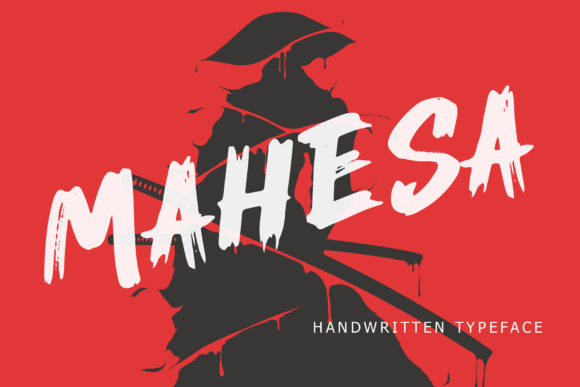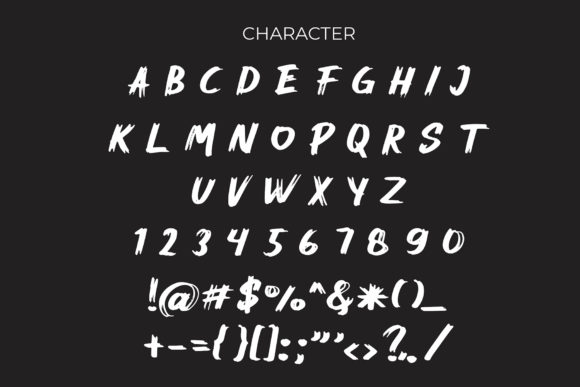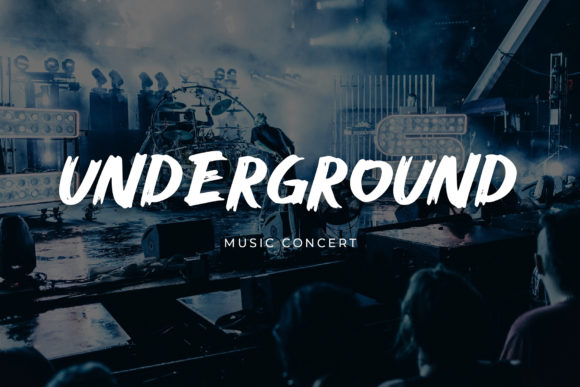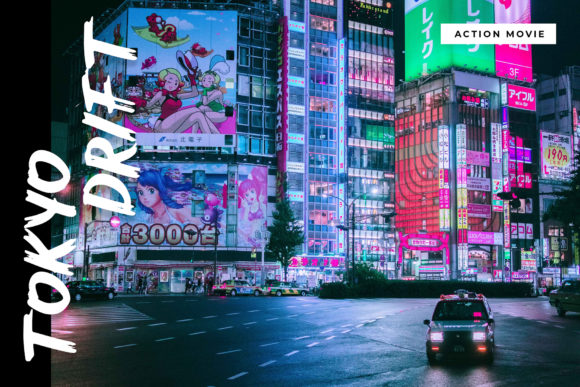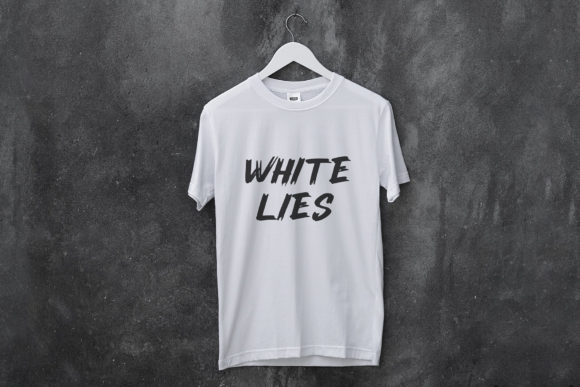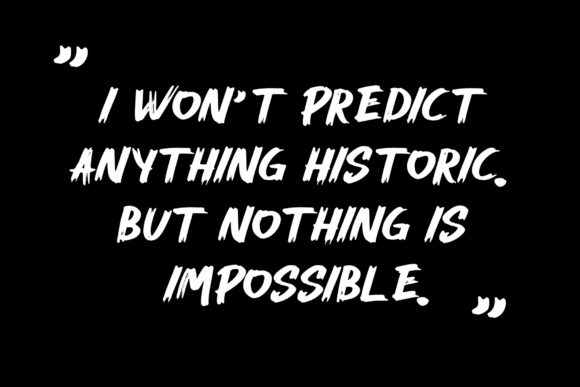
Mahesa Font
About Mahesa Font
Mahesa is a casual, fun handwritten font, created by using a brush pen. This font is the perfect fit for all of your logos, branding, social media, and crafty DIY projects.